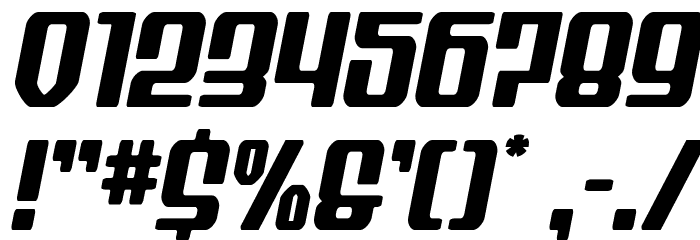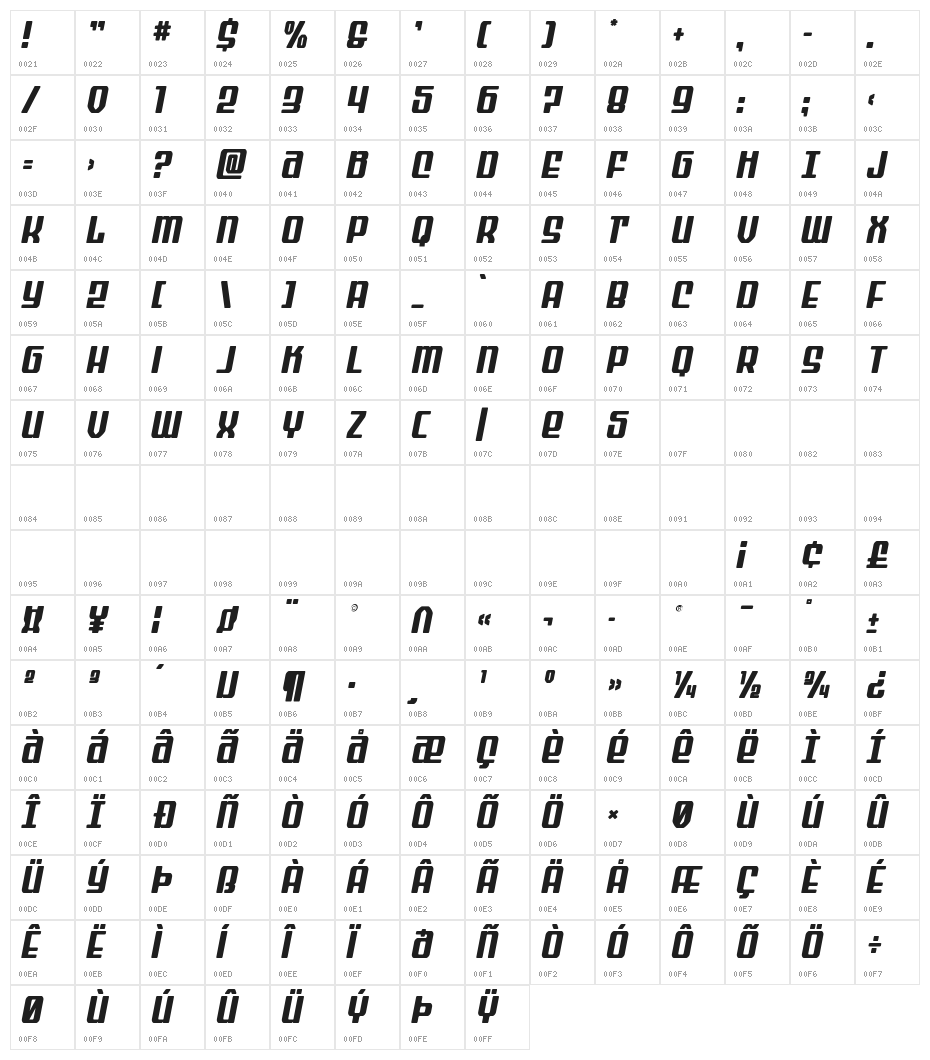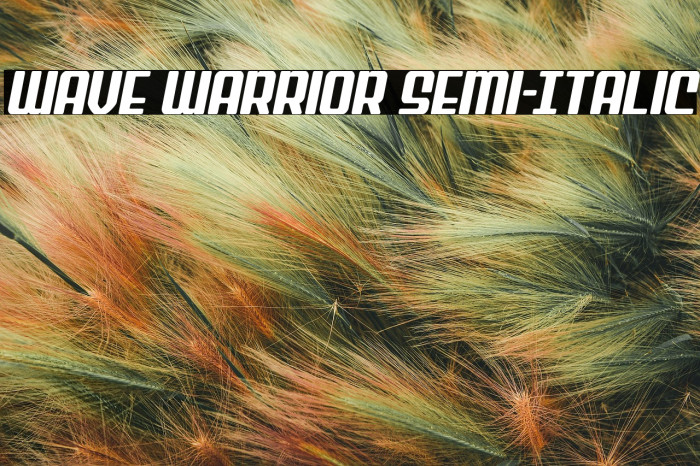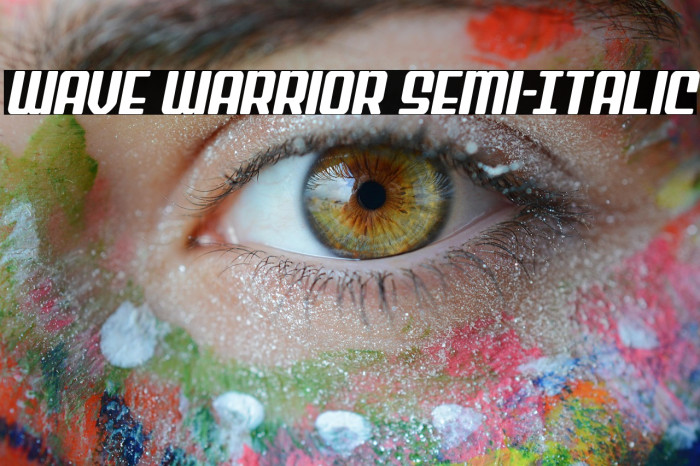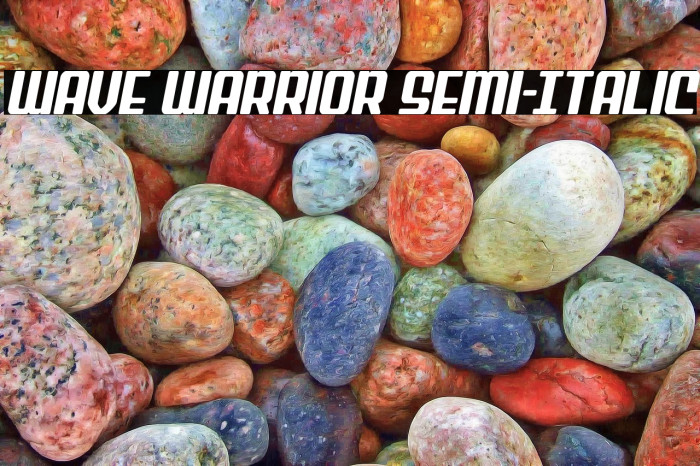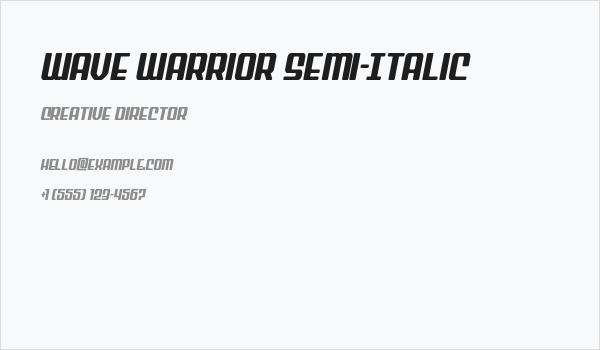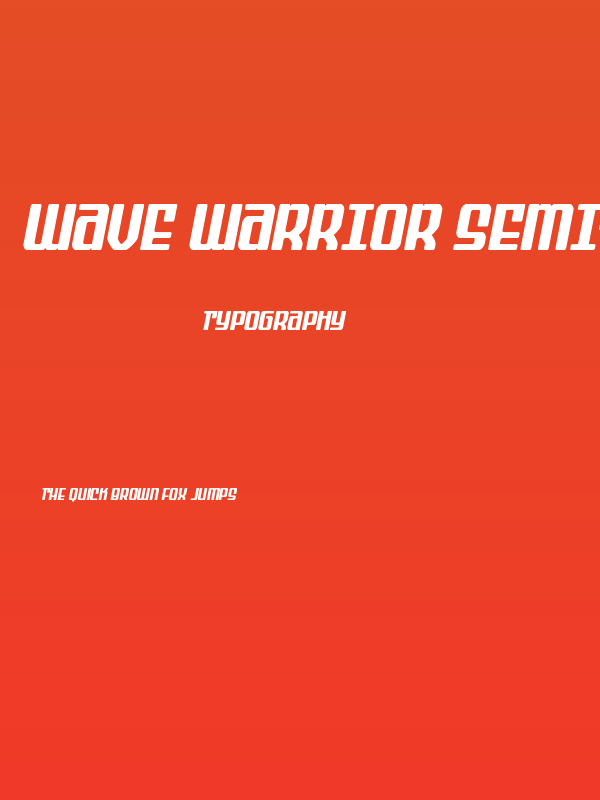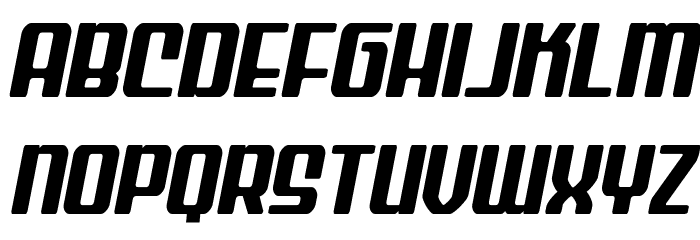
Wave Warrior Semi-Italic Font
Wave Warrior Semi-Italic Description
This font features a bold and dynamic style with a semi-italic slant, giving it a sense of motion and energy. The characters are blocky and robust, with a consistent stroke width that adds to its bold appearance. The uppercase and lowercase letters maintain a uniform height, enhancing readability while preserving a unique aesthetic. The numbers and special characters are designed to match the boldness and style of the alphabet, ensuring a cohesive look across all text. The overall design is modern and impactful, making it suitable for attention-grabbing headlines or branding materials.
| Proposed Projects | Ideal for sports branding, dynamic posters, modern advertising, and eye-catching headlines. |